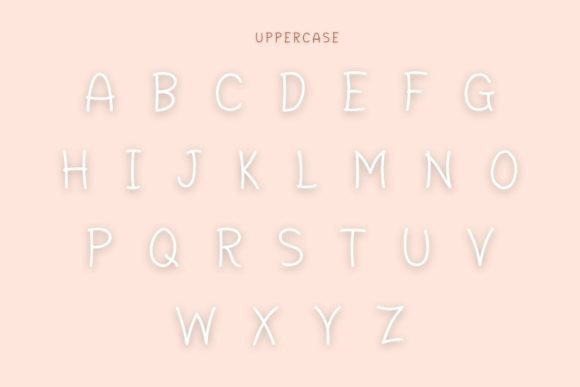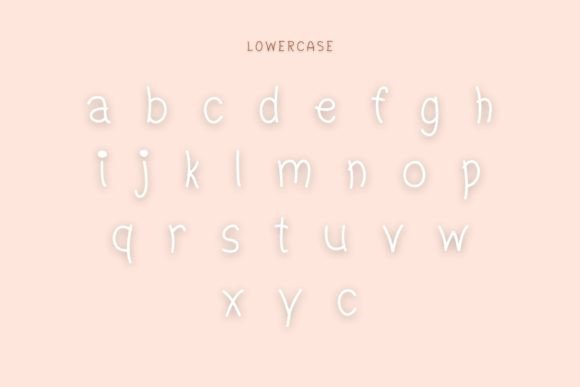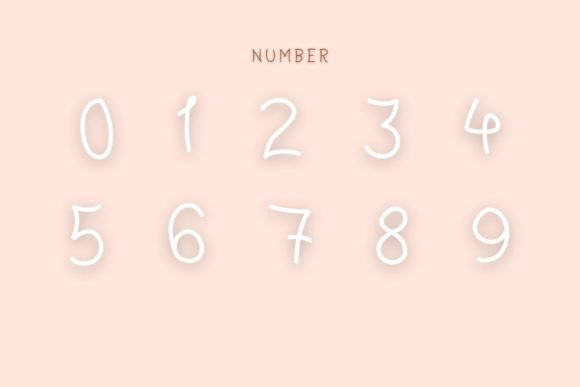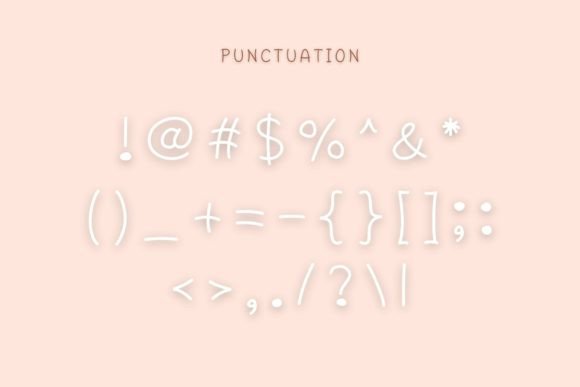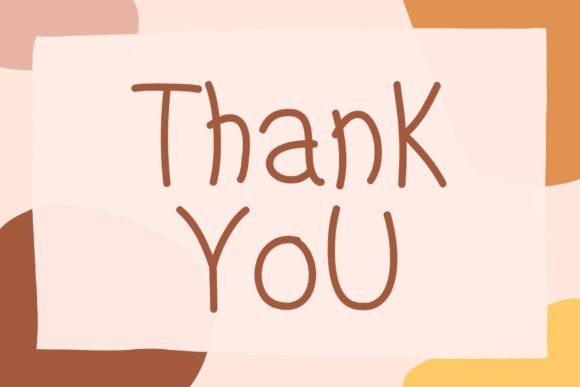
Introduction to Romona Font
Have you ever been stuck on a creative project, struggling to find the perfect font to bring your vision to life? I’m sure we’ve all been there – scrolling through endless options, trying to find that one font that speaks to us. For designers, this can be a daunting task, especially when working on a project that requires a specific aesthetic.
But what if I told you that there’s a font that’s been making waves in the design community, and it’s free to download? Enter the Romona Font, a beautiful, handwritten font that’s perfect for any creative project. With its authentic and playful feel, it’s no wonder that designers are falling in love with this versatile font.
Whether you’re working on a logo, branding, or ad, the Romona Font is a valuable addition to your design resource. Its high-quality design and transparent background make it easy to integrate into any project, and with its endless possibilities, you’ll be sure to find the perfect application for your next creative venture.
Key Features of Romona Font
- Features a transparent background, making it easy to use as a design element or overlay.
- Includes a range of glyphs and characters, making it suitable for a variety of creative applications.
- Designed with a unique aesthetic, setting it apart from other free fonts and making it a valuable addition to any design resource collection.
- Perfect for designers and artists looking for a high-quality, versatile font to enhance their creative projects.
Honest Review: Romona Font
- High quality: The font has a beautiful, elegant feel to it, perfect for any project that requires a touch of sophistication.
- Transparent background: This makes it easy to use the font on any background, without worrying about distracting shadows or other visual elements.
⚠️ Limitations:
- Limited character set: While the font is high quality, the character set is limited, which may make it difficult to use for longer blocks of text.
- No bold or italic versions: While this isn’t a deal-breaker, it’s worth noting that the font doesn’t come with bold or italic versions, which may limit its use in certain situations.
Overall, I’m impressed with the Romona Font. It’s a great resource for designers who want a high-quality, elegant font without breaking the bank. With a little creativity, it’s easy to work around its limitations, making it a valuable addition to any design toolbox.
Tips for Getting the Most Out of Romona Font
Use Romona Font on a transparent background to give your designs a clean and modern look.
Combine Romona Font with other design elements, such as graphics and images, to create a visually appealing design.
Experiment with different font sizes and styles to add emphasis and hierarchy to your design.
Romona Font is commonly used for:
Logos and branding
Graphics and illustrations
Presentation slides and documents
Web design and development